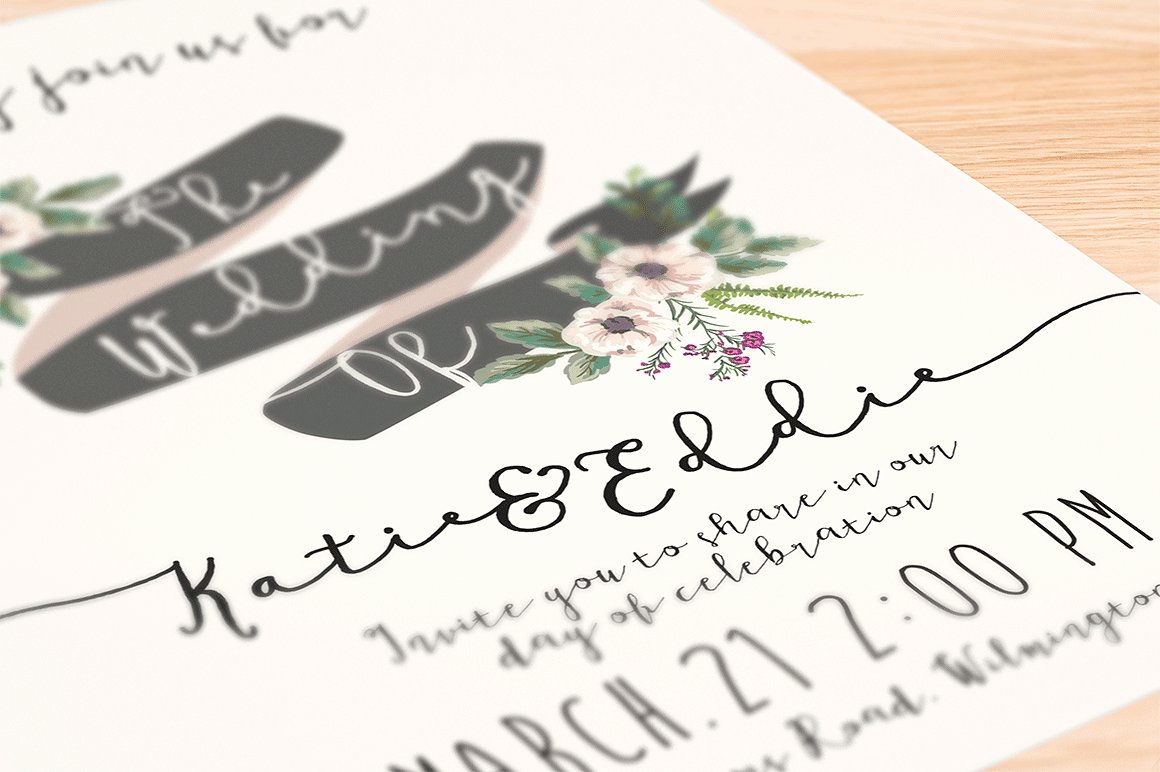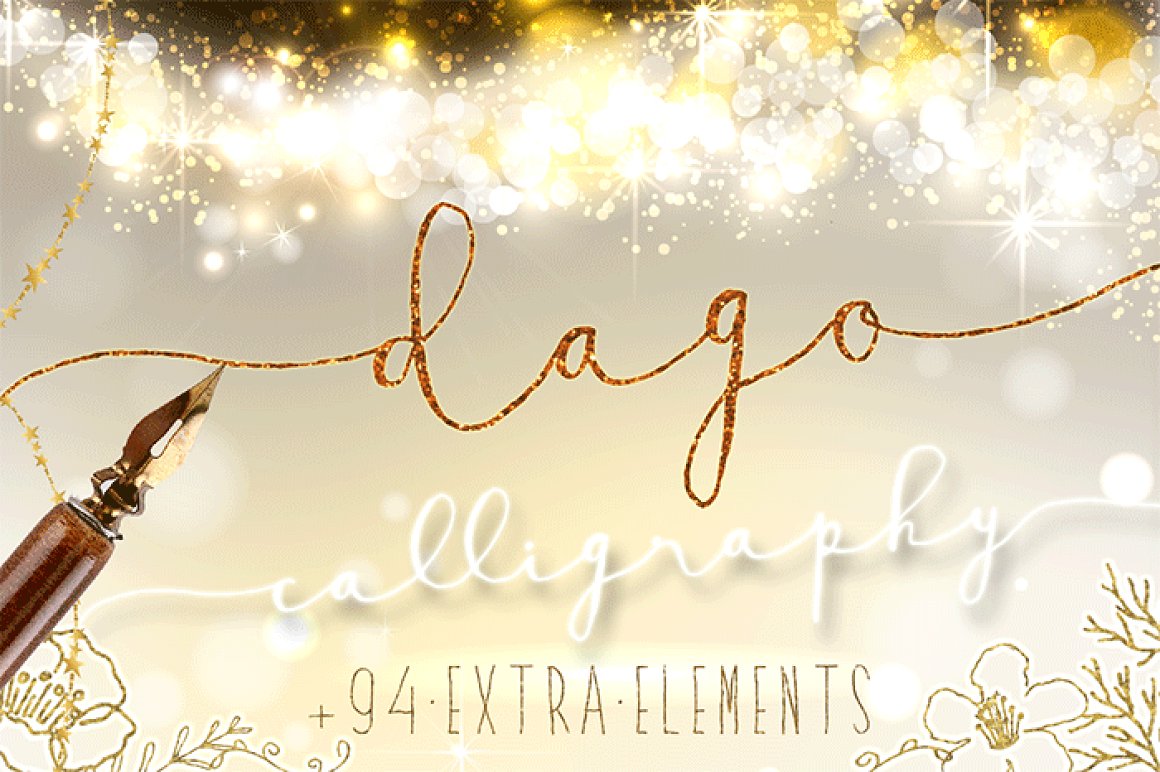
Dago Script
Dago Script Font
Dago, Modern Calligraphy Font
Hello Lovely, Introduce Dago font, Hand Lettered Calligraphy Font with beautiful dingbat ornaments. This fonts have unique letter, with natural handdrawn style, a lot beautiful dingbat ornaments and swashes elements, to design title, blog header, invitation design, art quote, typography art, modern envelope lettering or book design, happening style like handdrawn design or watercolor design theme, craft design, any DIY project, book title, wedding font, pop vintage design, print on demand product or any purpose to make our art/design project look pretty and trendy.